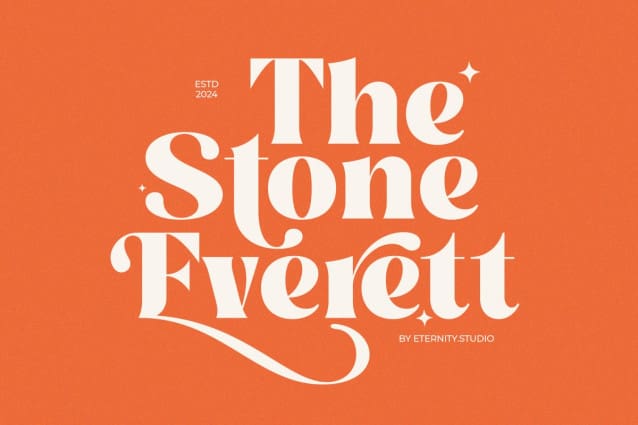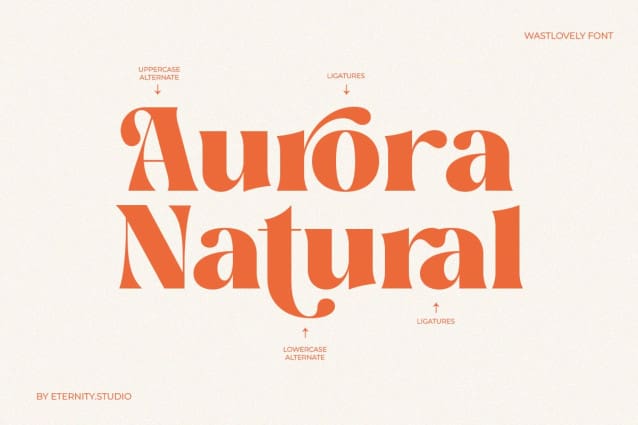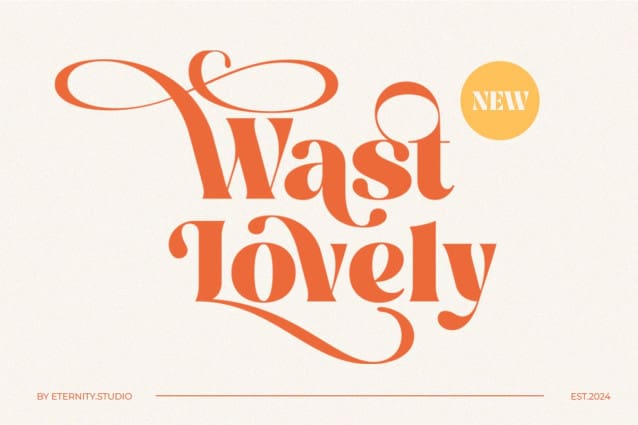
Wast Lovely Font
Wast Lovely Font – Stylish Retro! This font isn’t just about style—it’s about making your designs 80-90s with retro style. With its sleek alternates and graceful ligatures, Wast Lovely is perfect for all your graphic design needs. Whether you’re crafting a logo, designing a poster, or creating a stunning website, this font delivers.